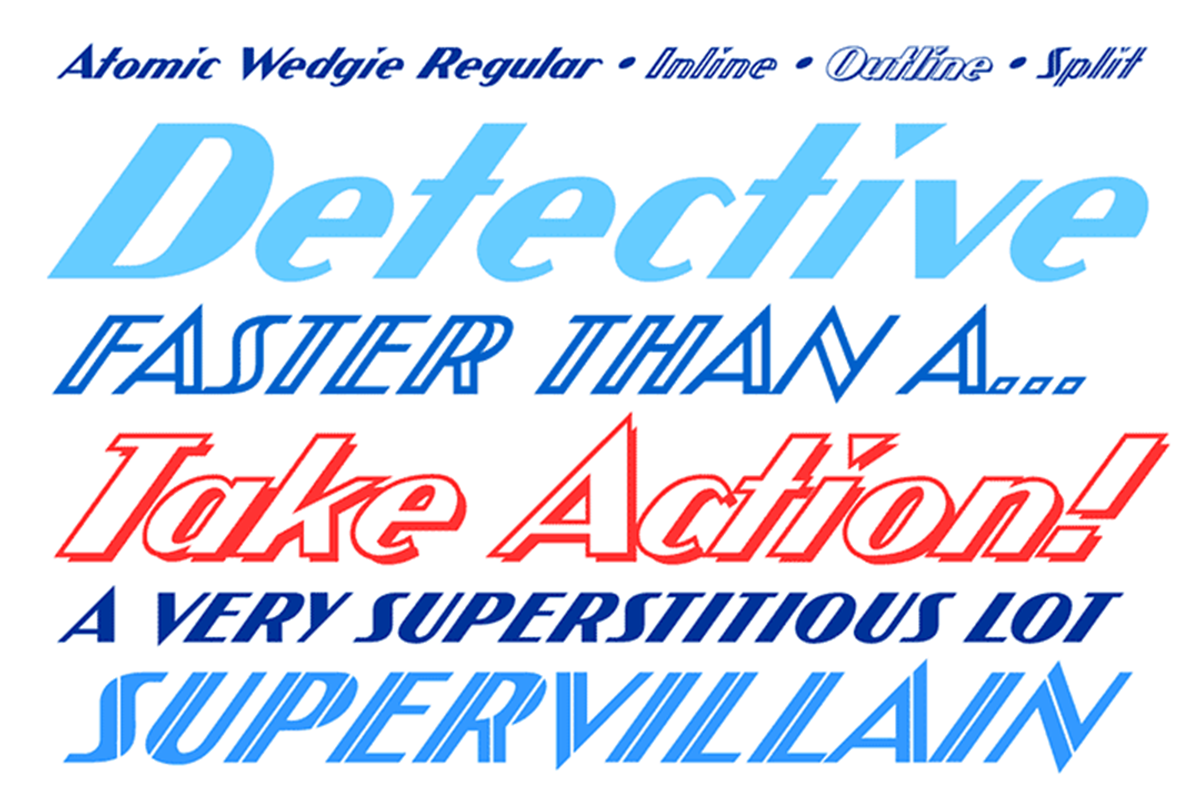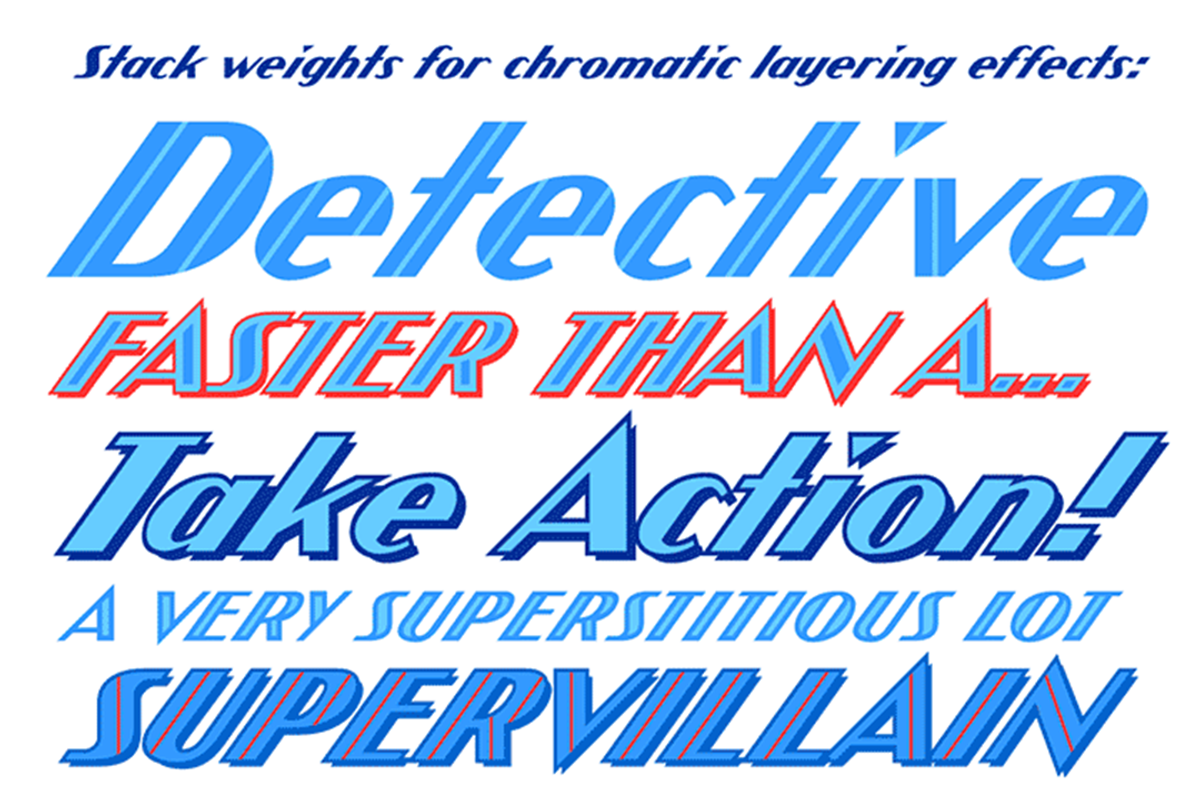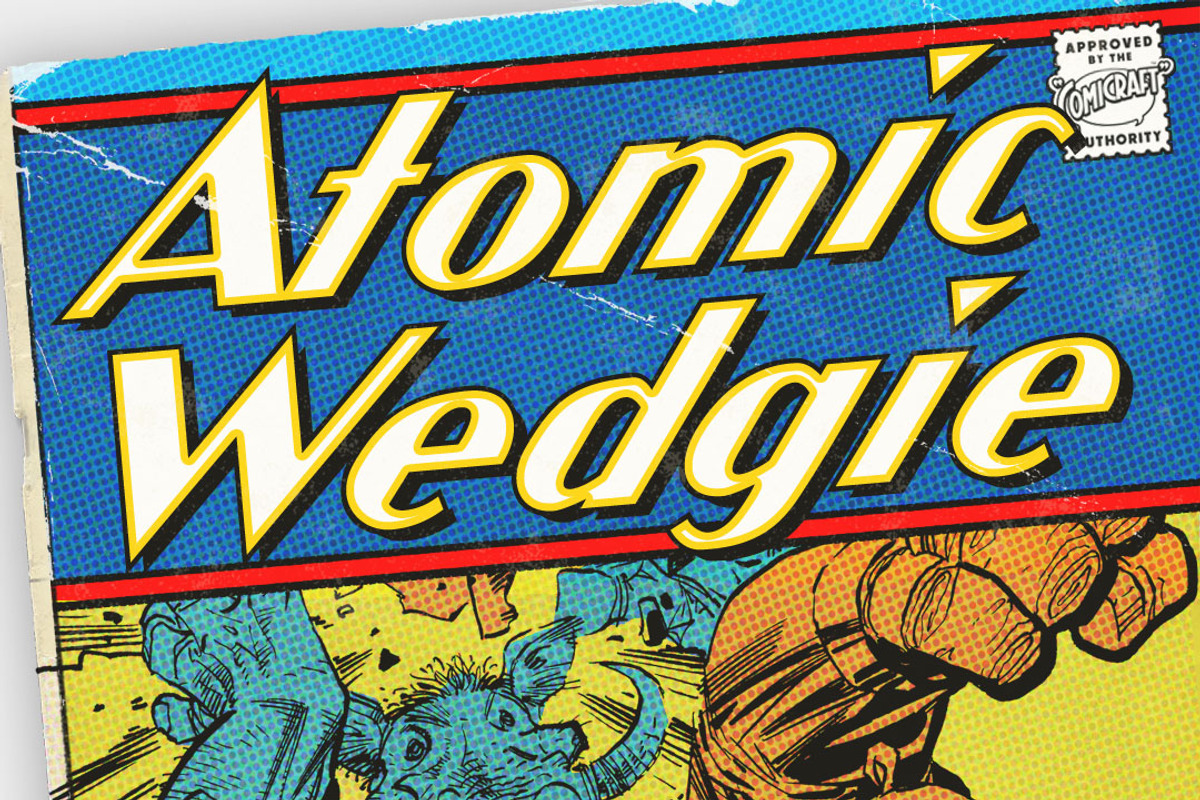
Atomic Wedgie - Art Deco comic font
Atomic Wedgie - Art Deco comic font by Comicraft Fonts is a font selected for branding, posters, packaging, typography.
- Silver Age super heroes know that Men of Action can never look foolish fighting crime in their pyjamas and neither will you with the help of
Atomic Wedgie - Art Deco comic font by Comicraft Fonts fits naturally into Branding, posters, packaging, typography.